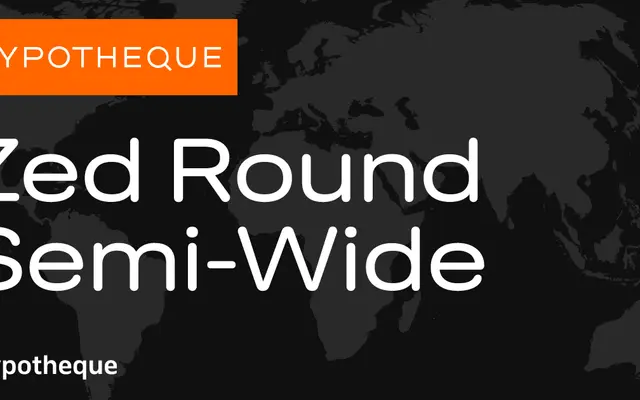
Zed Round Semi-Wide specimen from Typotheque
A semi-wide variant within Typotheque's vast Zed system, combining rounded terminals with an extended width across nine weights and three slope variants.
Zed Round Semi-Wide sits within one of the most extensive width-and-weight systems in contemporary type design, spanning nine widths from Extra-Compressed to Extra-Wide across Display, Round and Text subfamilies. The Round subfamily applies softened terminals to the geometric skeleton, distinguishing it from the sharper Display cuts while sharing the same structural logic. Each weight runs in three slopes — upright, Slanted and Backslanted — with weights named after world cities from Amsterdam through Zaragoza.
Zed Round Semi-Wide is part of a large geometric sans system with rounded terminals; the Round subfamily distinguishes itself from the sharper Display cuts through softened stroke endings across all widths.